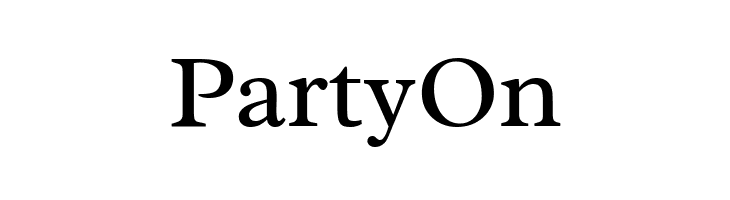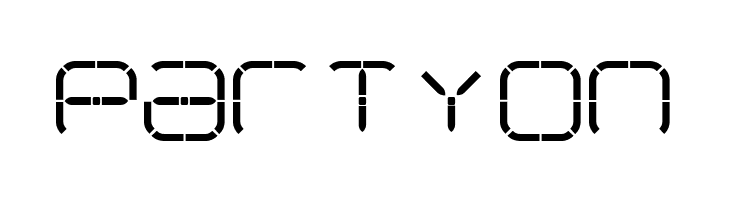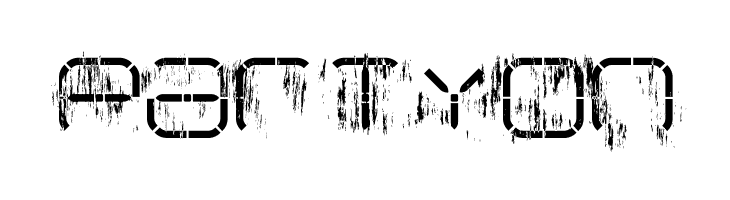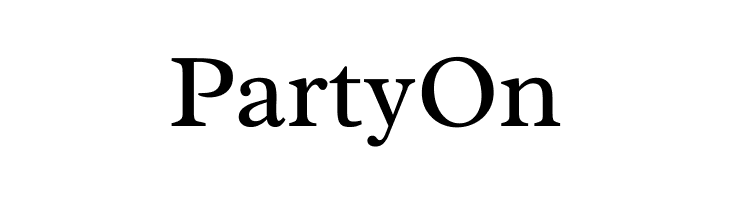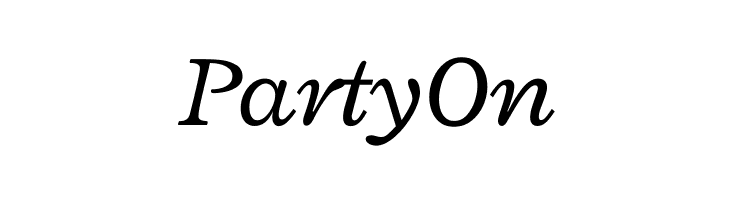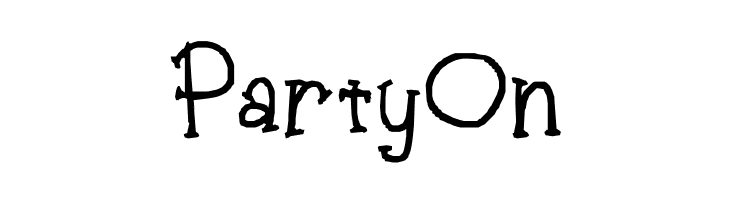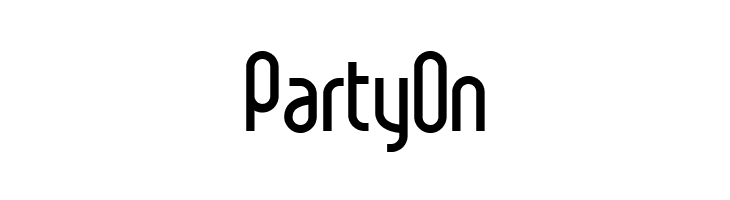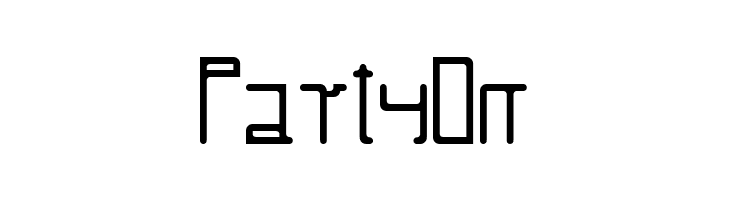
A futuristic, segmented font with a digital, LED-inspired design.
A bold, eroded font with a gritty, vintage appearance.
A modern, elegant script font with smooth, flowing lines.
A bold, brush-textured font with a dynamic and artistic style.
A futuristic, geometric font with a bold, modular design.
A classic serif font with elegant proportions and refined serifs.
A classic italic font with smooth curves and moderate contrast, offering elegance and readability.
A classic serif font with elegant curves and moderate contrast.